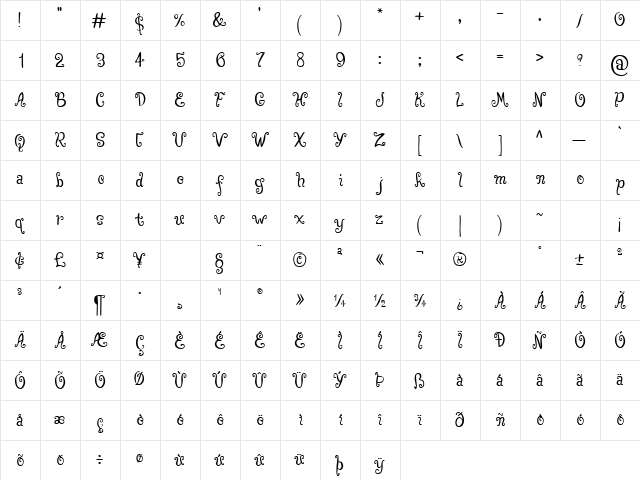
Chocolate Mint Surprise BV Regular
Design Context for Chocolate Mint Surprise BV Typeface
Chocolate Mint Surprise BV is a composed and adaptable typeface that performs quietly and consistently across a wide range of design contexts.